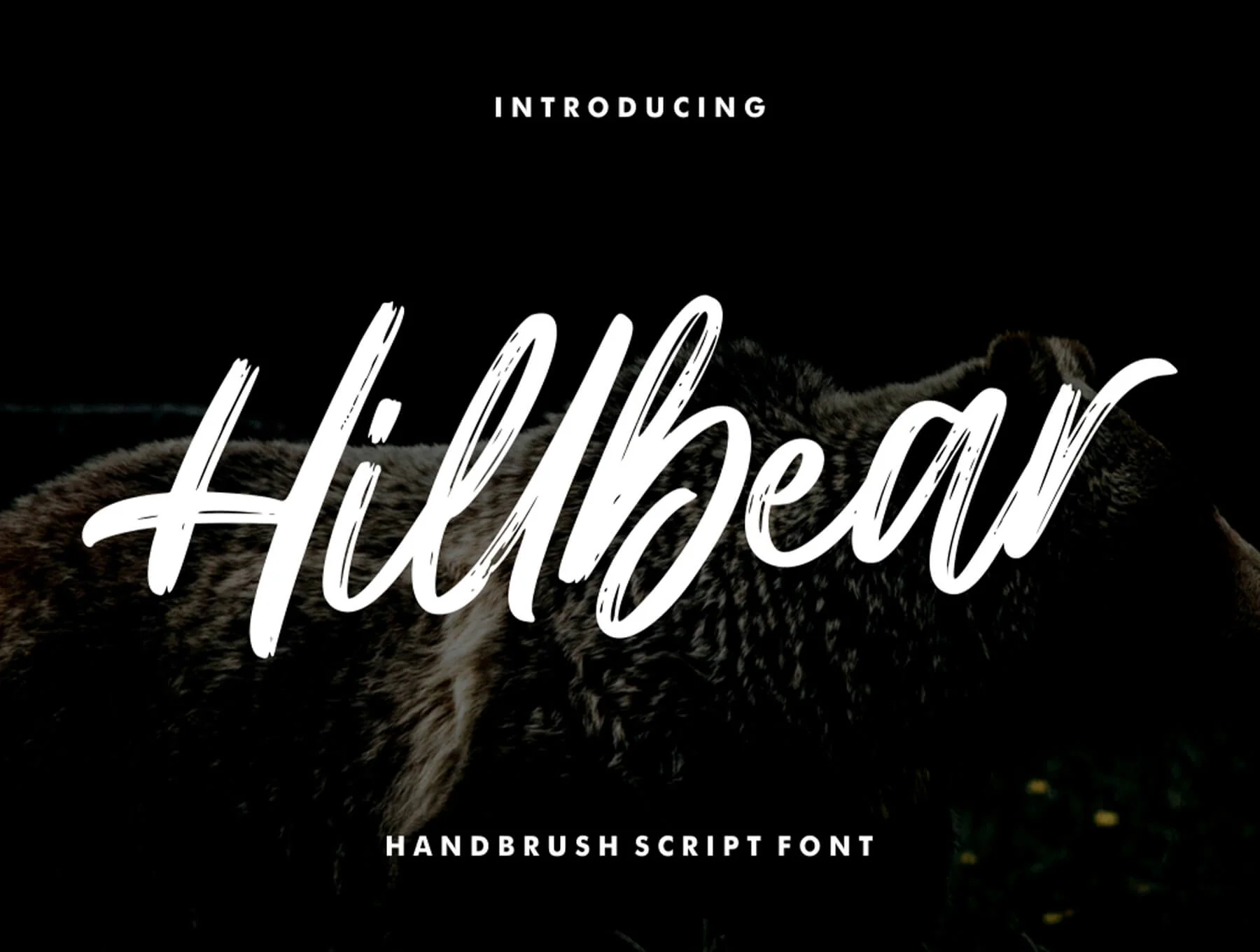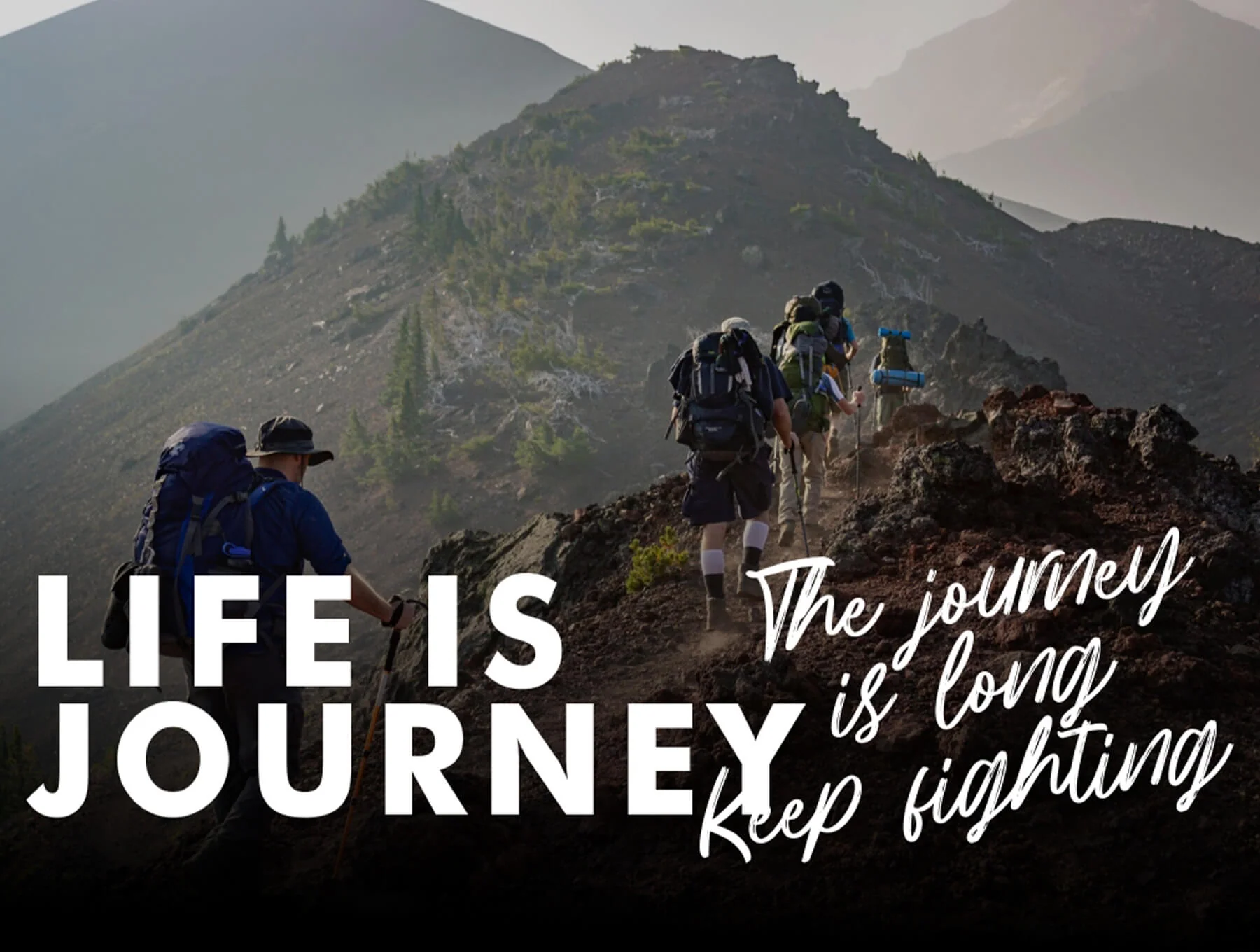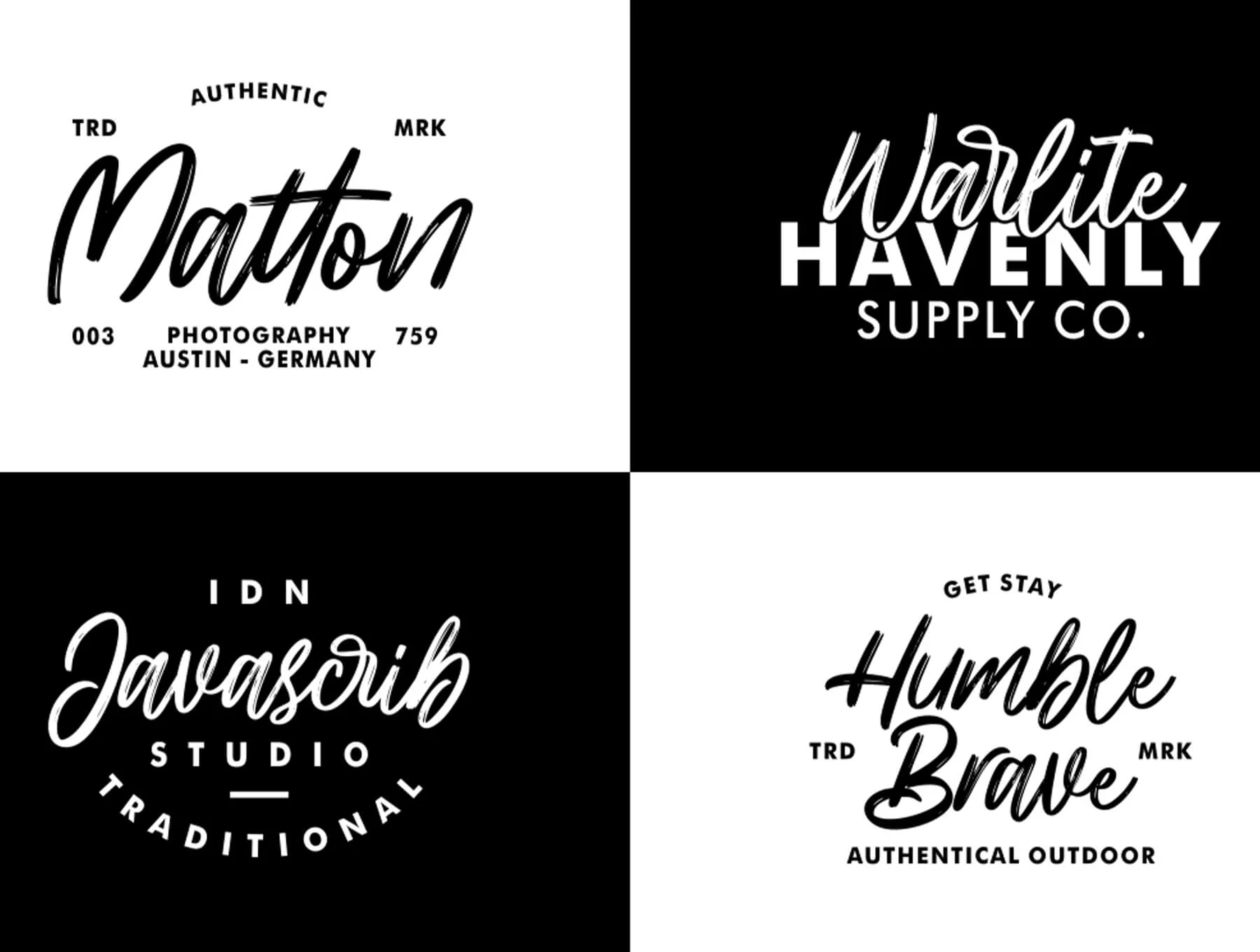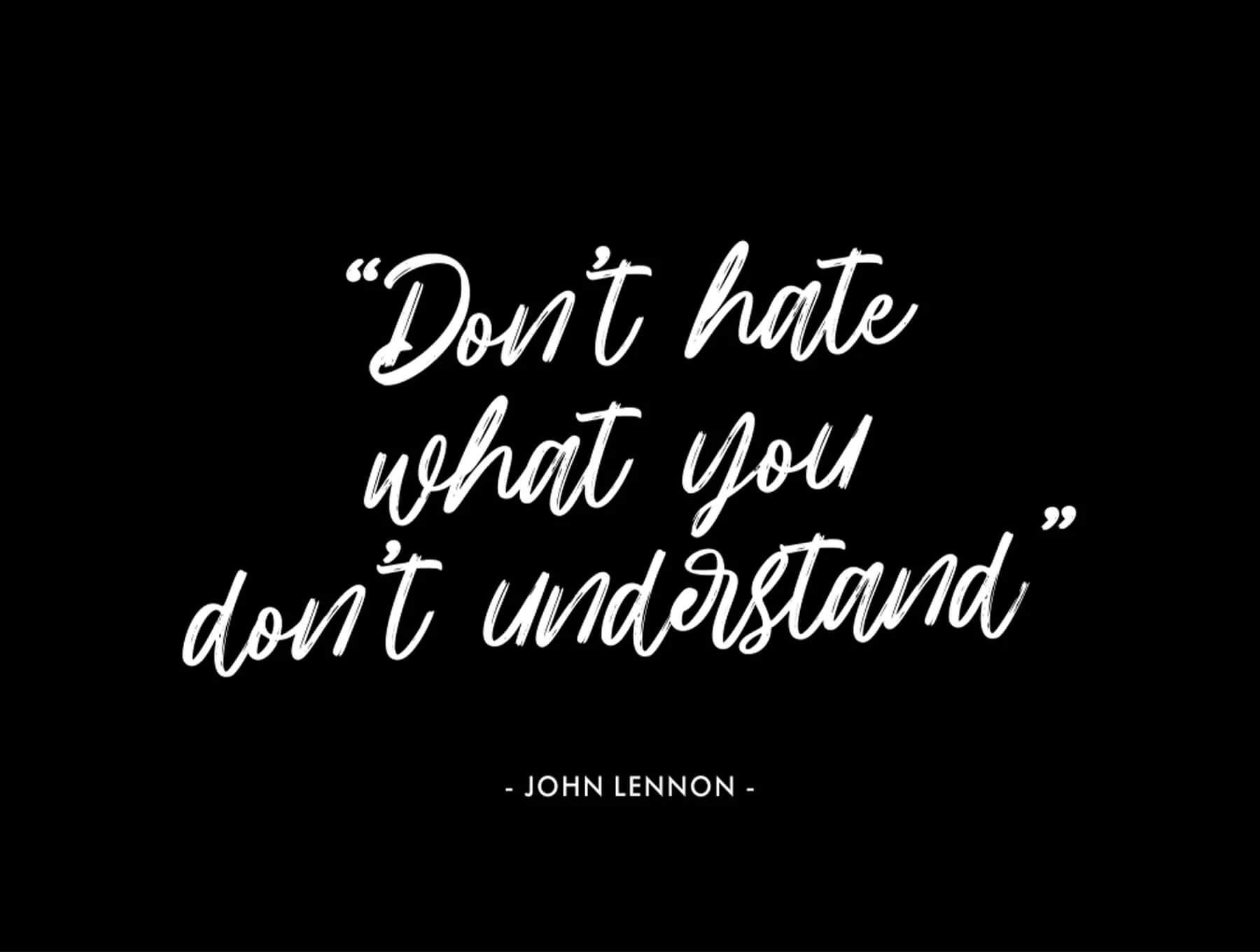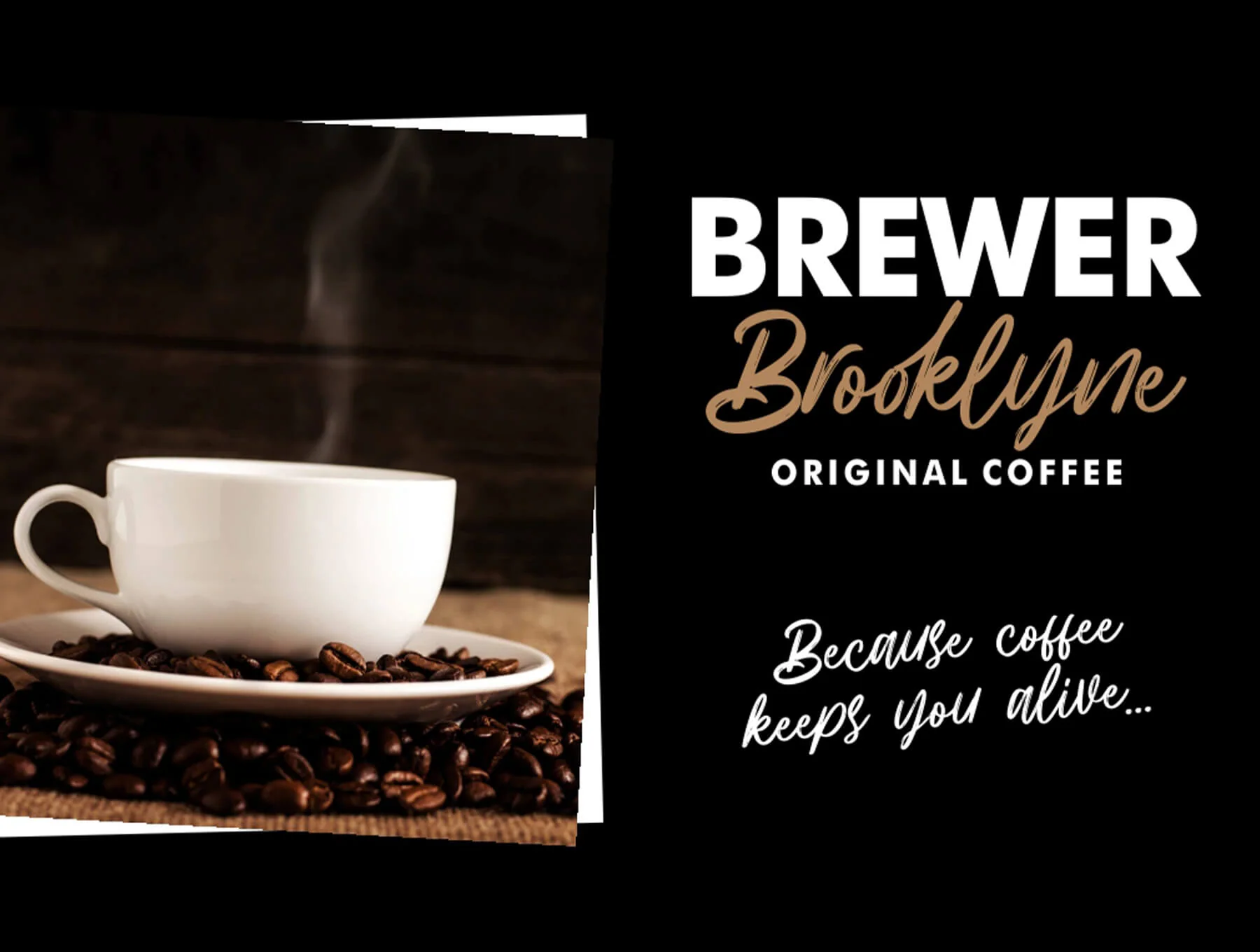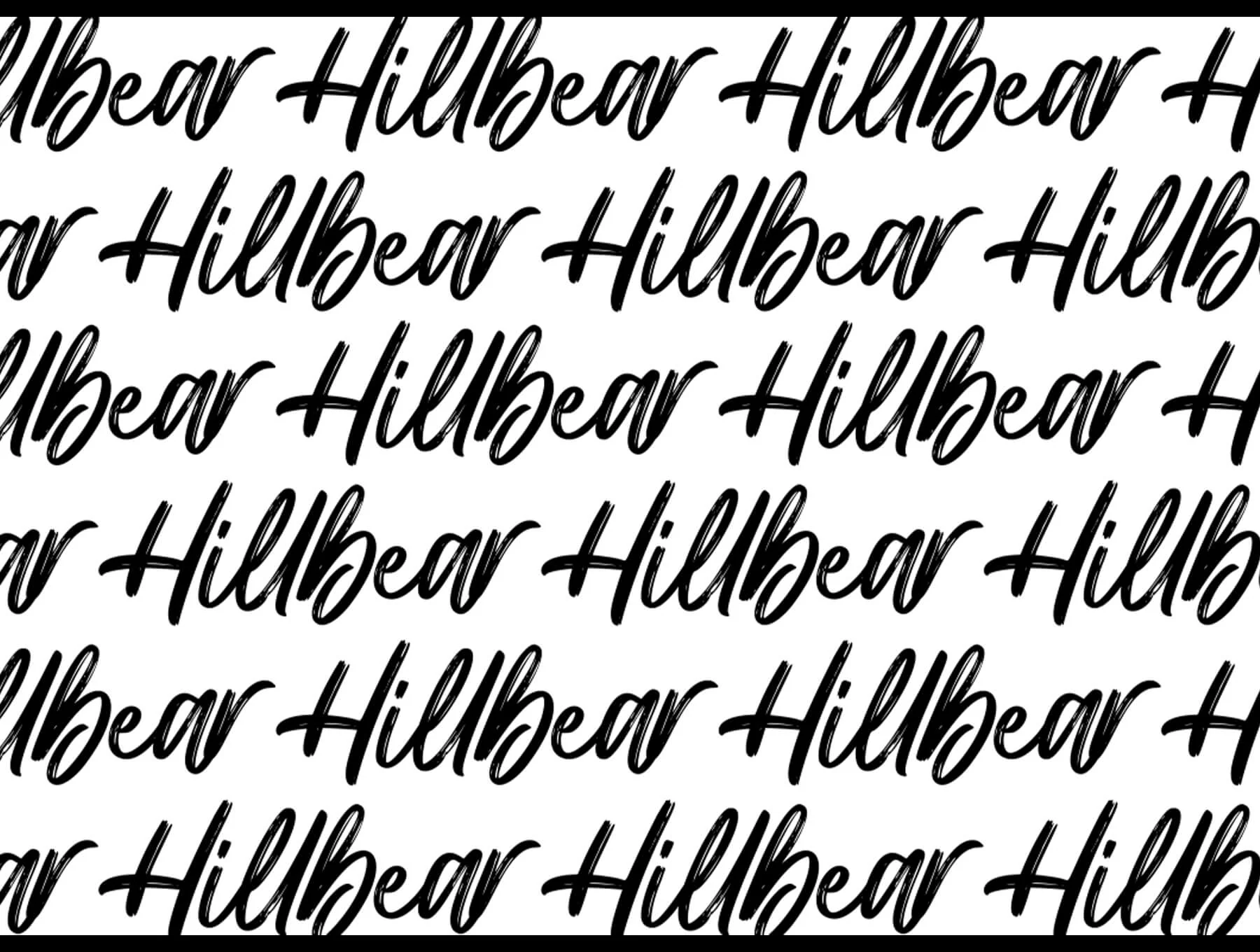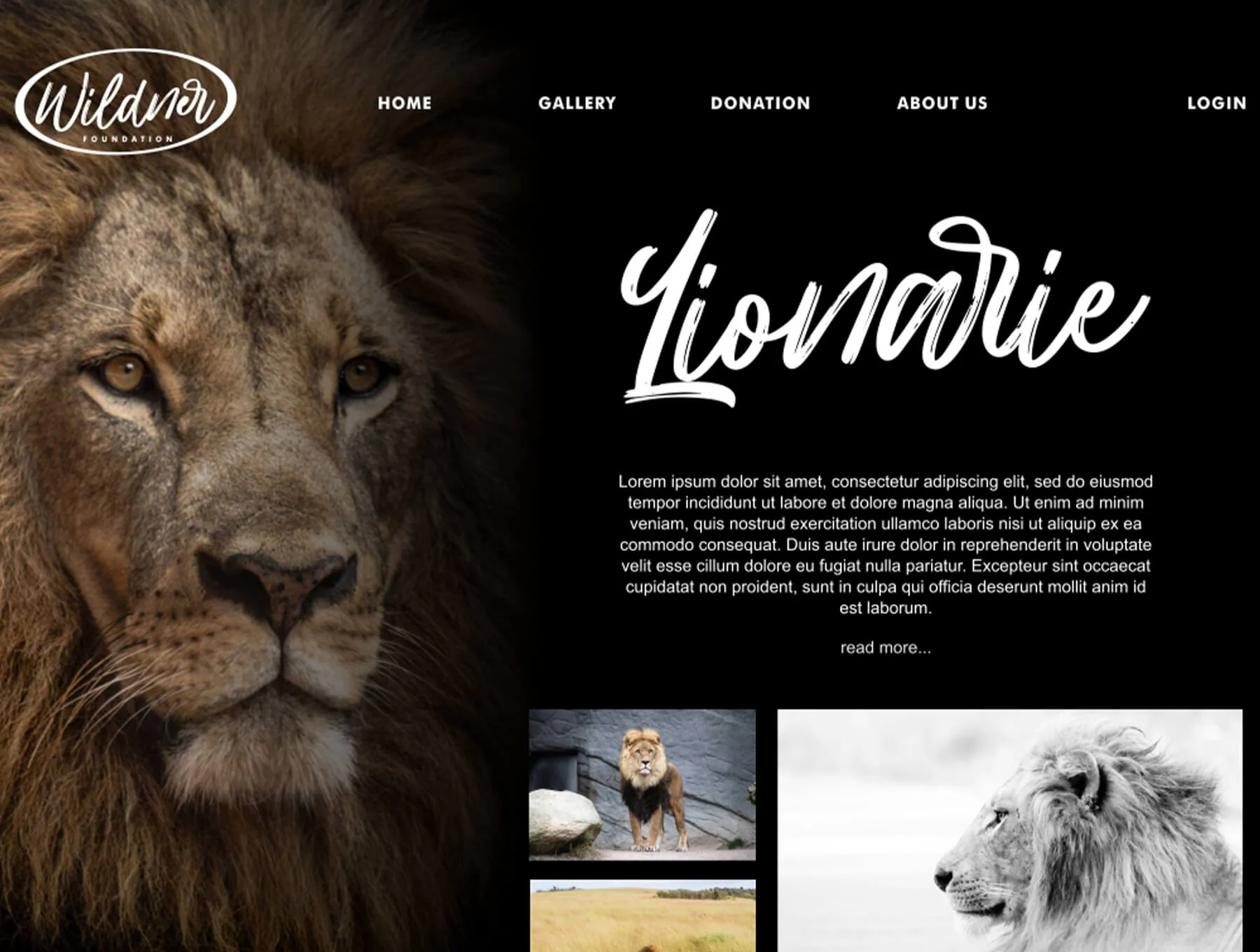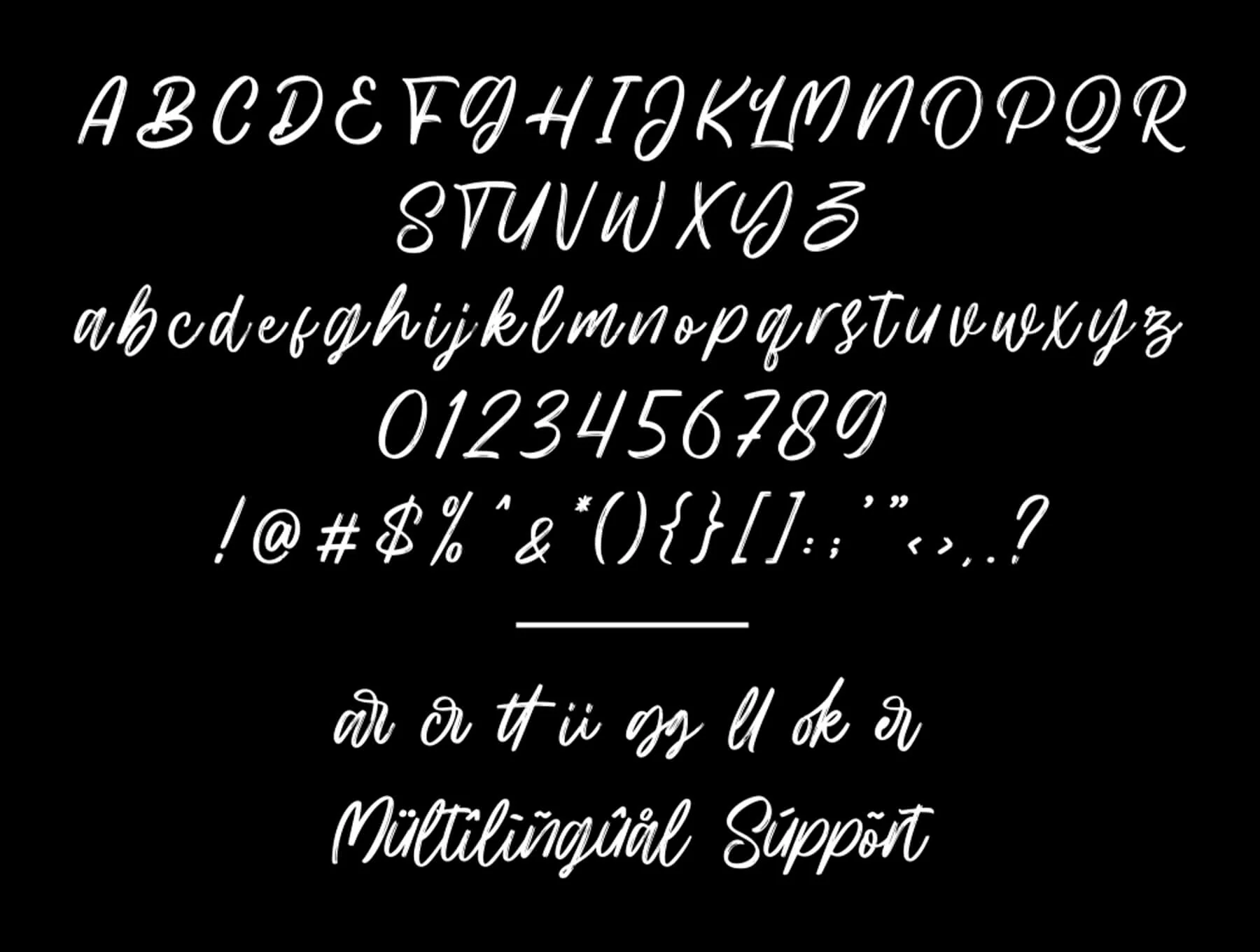
Hillbear - Handbrush Script Font
Brushstroke Script Typeface
Capital and small letters
Numerals and punctuation marks
Letter ligature glyphs
Hillbear is a brush-style script font crafted with high-quality design. Created with great attention to detail, it blends casual charm, refined elegance, and artistic character.